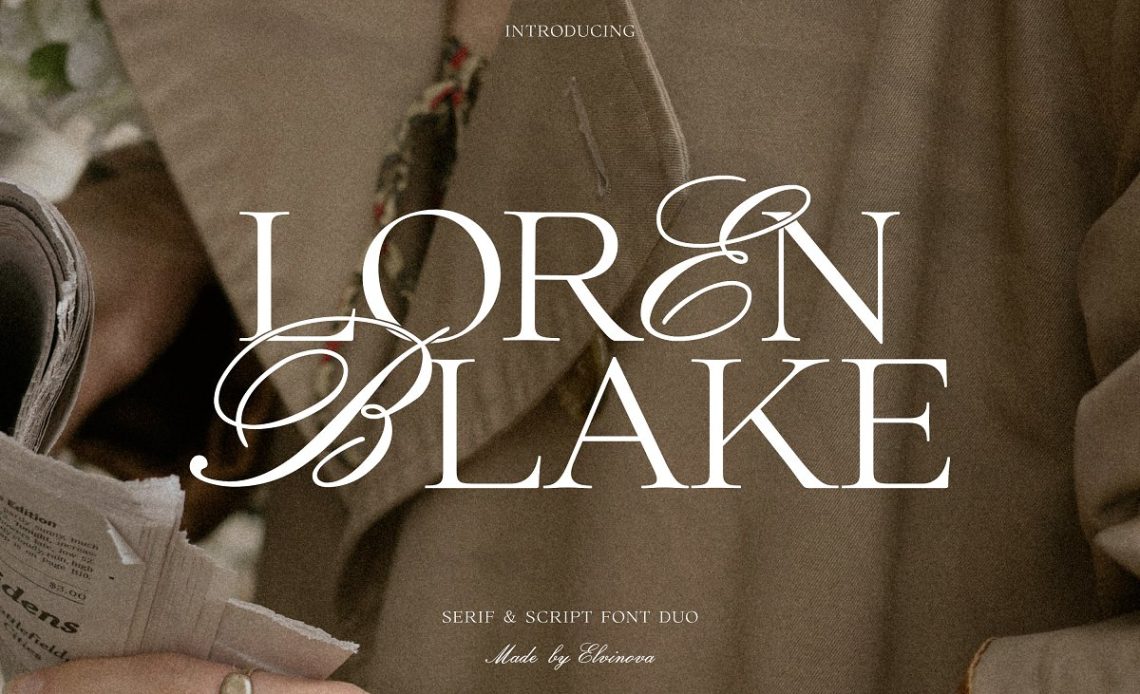
Looking for a classic and elegant font for your branding needs? Look no further than Loren Blake Font Duo, created by the talented designer Elvina Gafarova. This versatile serif and script font duo is perfect for adding a touch of sophistication to your designs.
The Loren Blake Serif font is a timeless and classic typography, with clean and crisp lines that exude professionalism. The large and prominent capital letters of the script font give it a distinct and eye-catching look, perfect for titles, headings, and branding.
The Loren Blake Script font is equally stunning, with its elegant and flowing cursive style. Use it to add a touch of romance to wedding invitations, or to add a touch of luxury to packaging and web design. Play around with letter spacing to add even more class and sophistication to your designs.
The Loren Blake Hybrid font combines the best of both worlds, offering a perfect balance between the classic serif font and the elegant script font. It is perfect for a wide range of design needs, from branding to editorial design.
In short, Loren Blake Font Duo is a must-have for anyone looking to elevate their design game. With its timeless and classic serif font and elegant script font, this font duo is the perfect choice for any project that requires a touch of sophistication and class. So why wait? Download Loren Blake Font Duo today and start creating stunning designs that will leave a lasting impression.